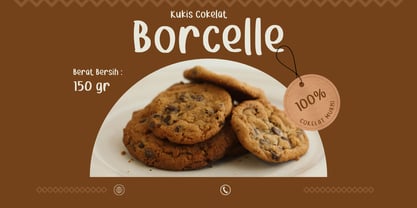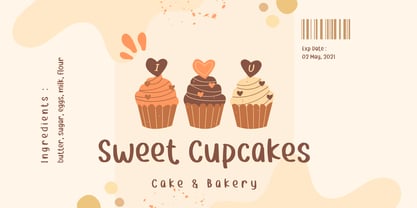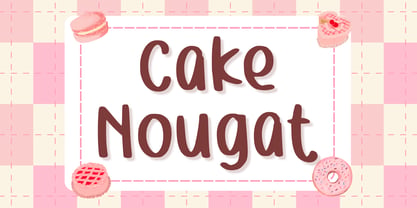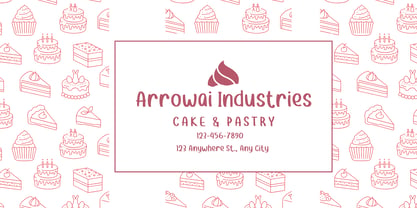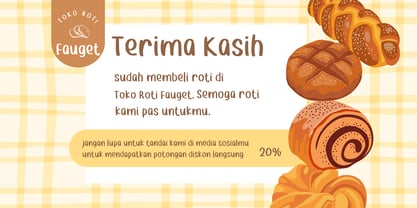
Cake Nougats
by Aisyah
The Cake Nougats Font Family was designed by Nur Aiysah Amalia and published by Aisyah. Cake Nougats contains 1 styles. More about this family
Reshape your ingredient lists and package designs with Cake Nougat, a font that infuses beauty into every pixel. With its crisp lines and elegant curves, Cake Nougat is the perfect typeface for enhancing visual communication and showcasing your creative finesse. Whether it's on an ingredient card or a product label, this font will ensure your design stands out in a crowd, effortlessly marrying functionality with aesthetic appeal. Transpose your imaginative ideas into reality with Cake Nougat - the font that lifts design to new heights.
Designers: Nur Aiysah Amalia
Foundry: Aisyah